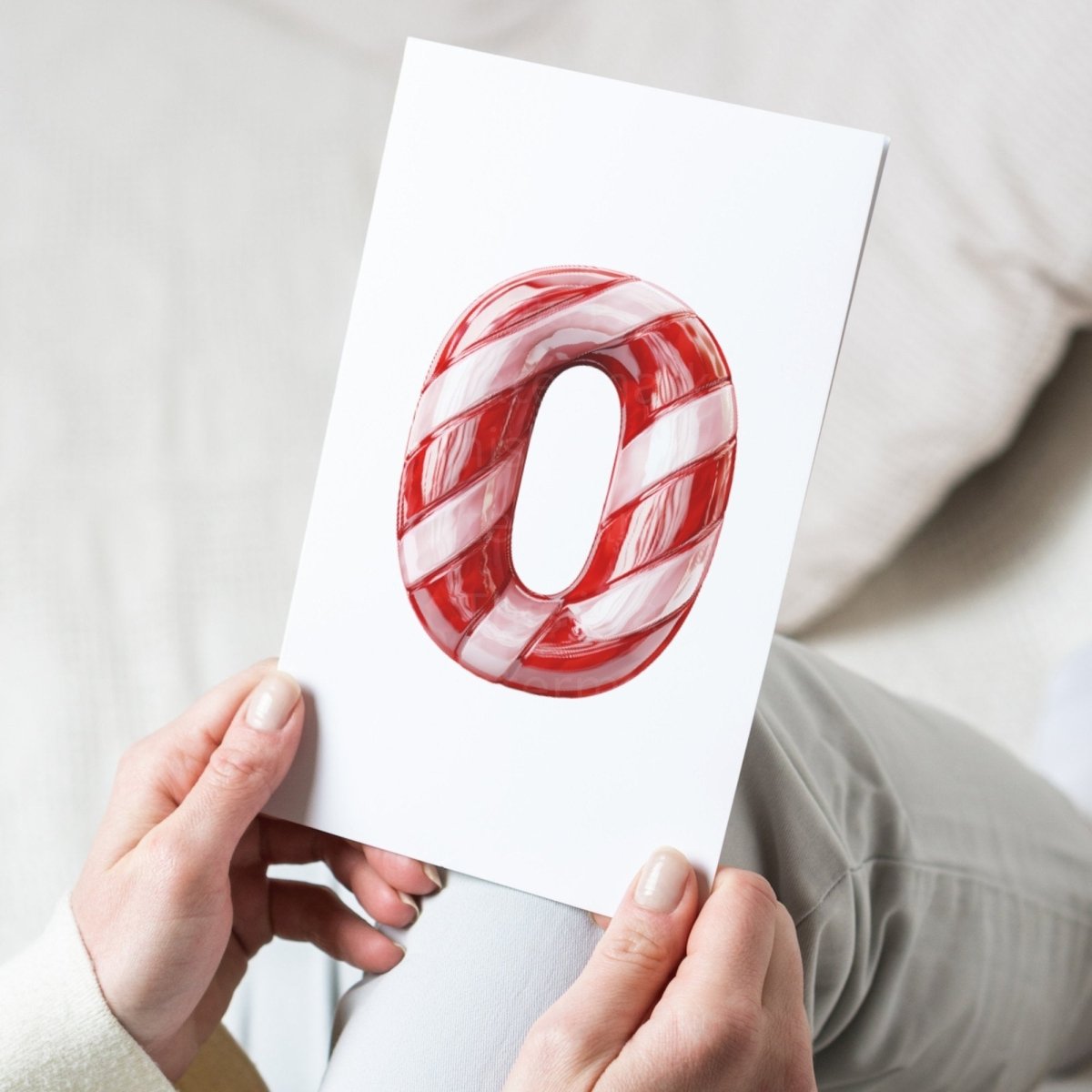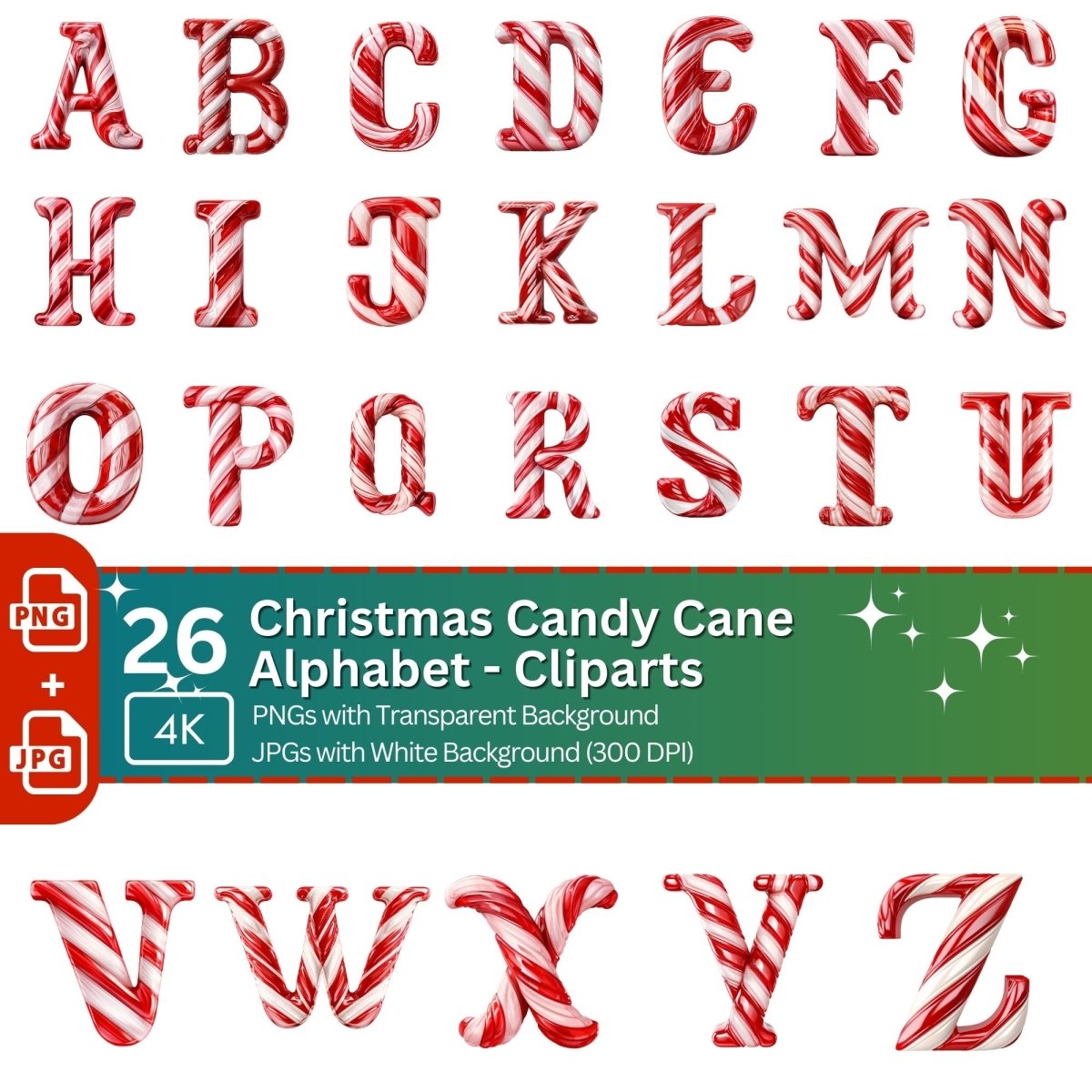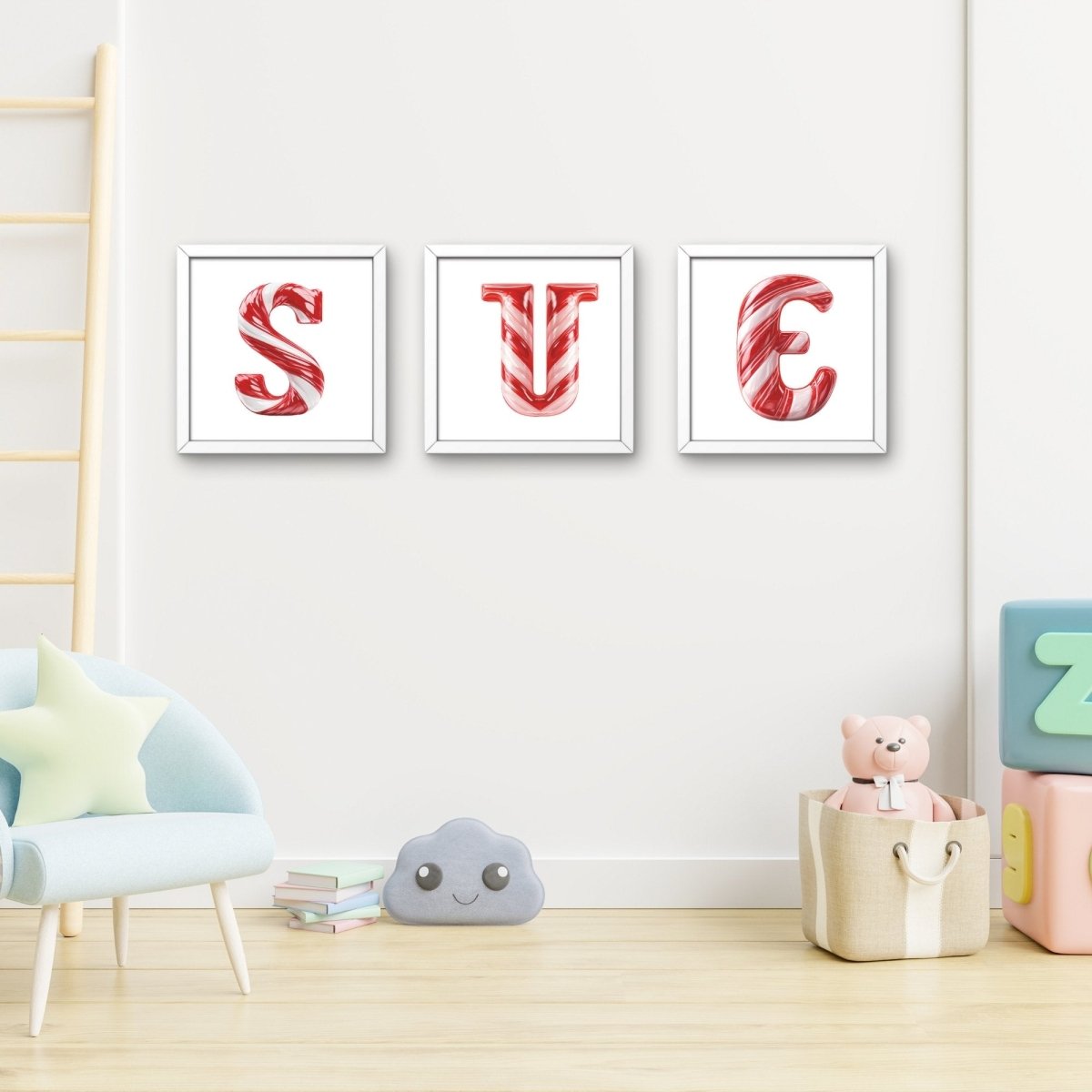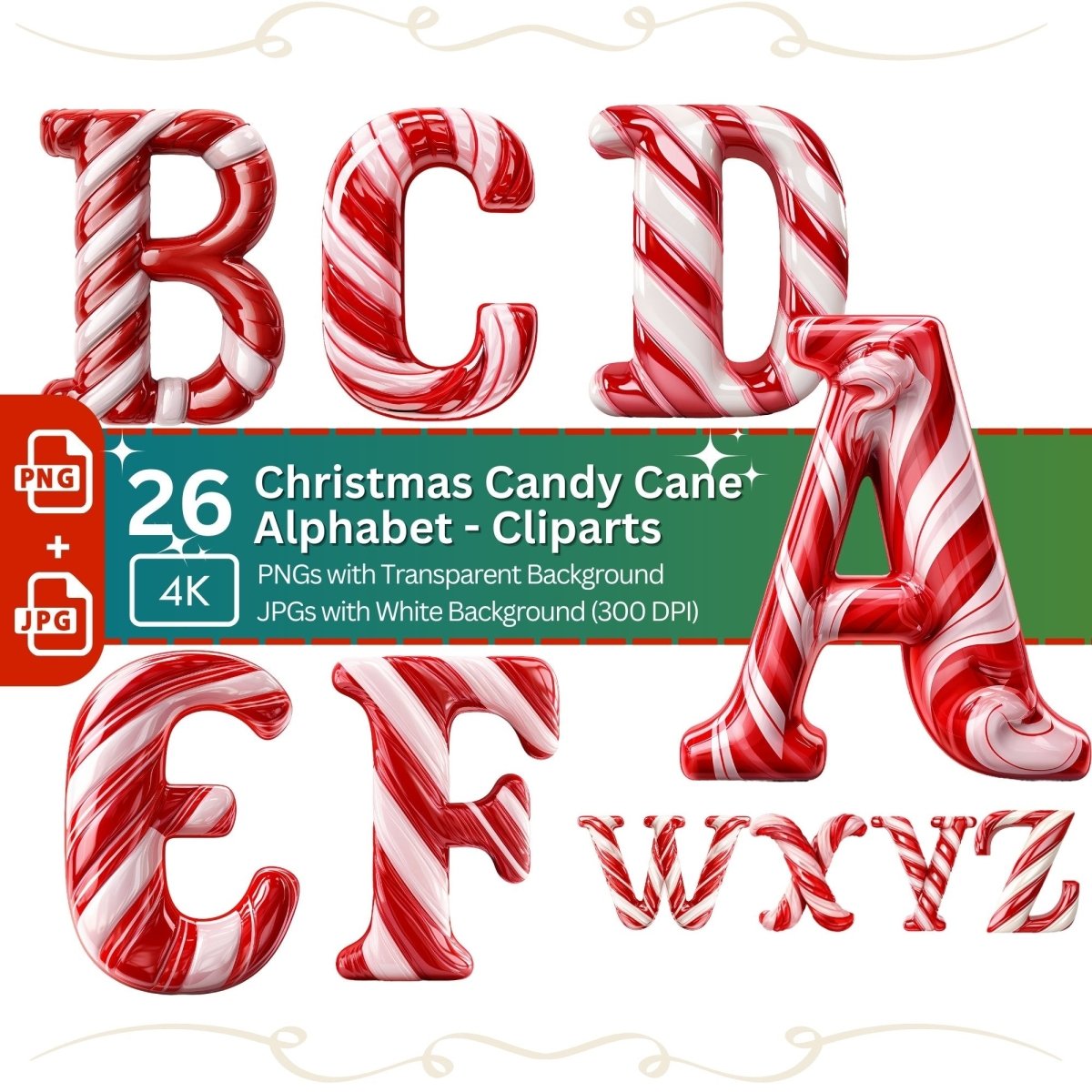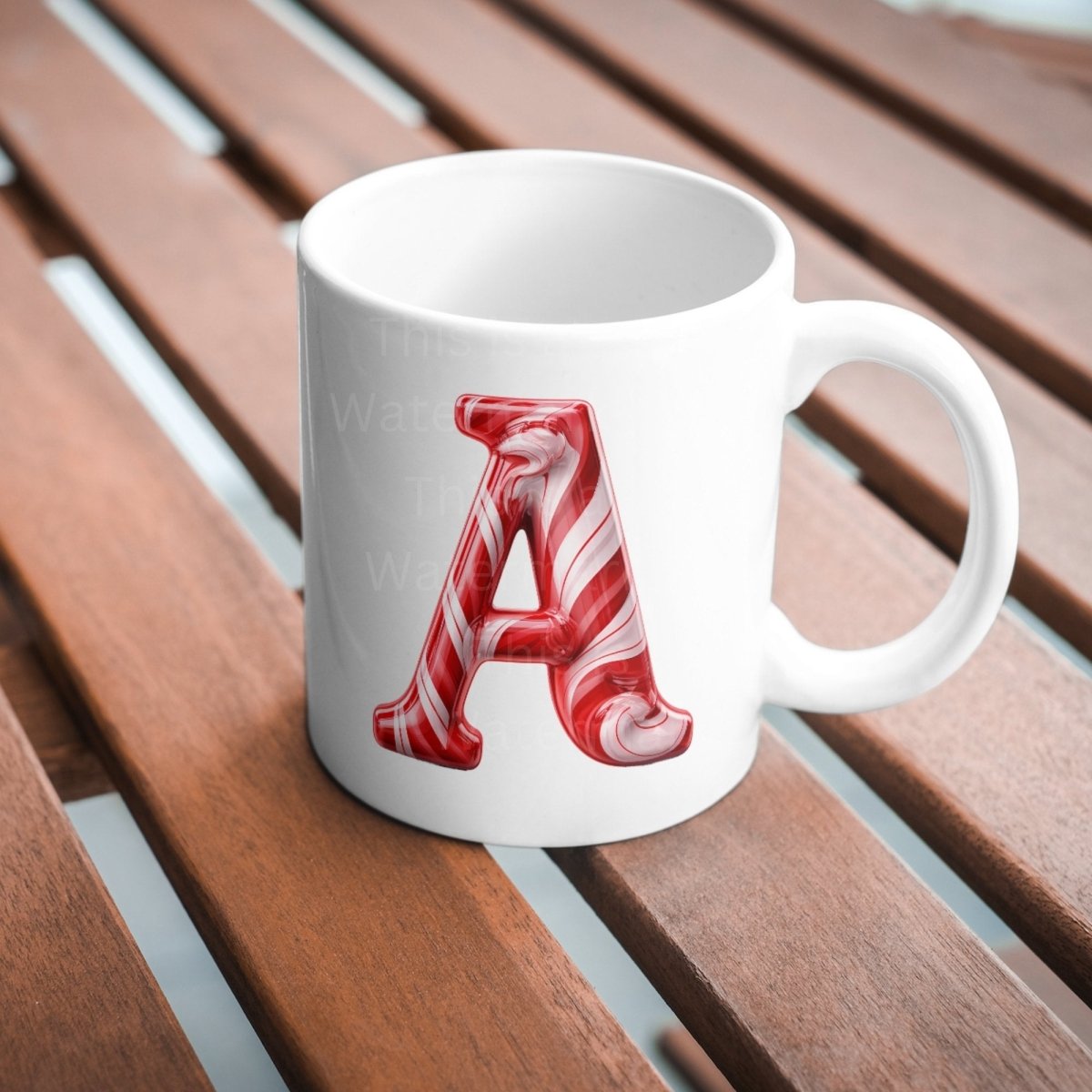
Dress your designs in festive flair with our Christmas Candy Cane Alphabet PNG Clipart! This delightful set features 26 separate letters, each a sweet treat on its own. Ideal for sublimation, crafting, and adding a sugary touch to your holiday projects. Elevate your creations with this charming Christmas font and spread the joy of the season! 🍭🎄✨